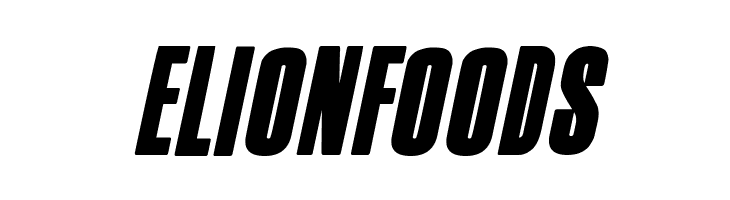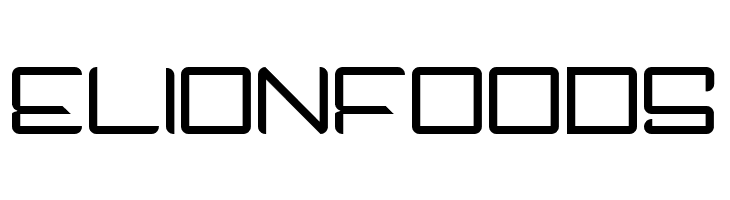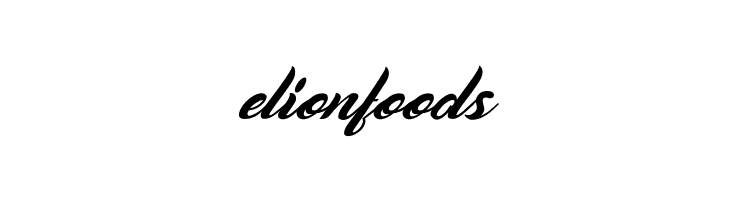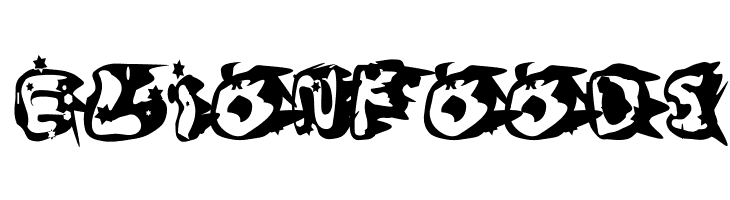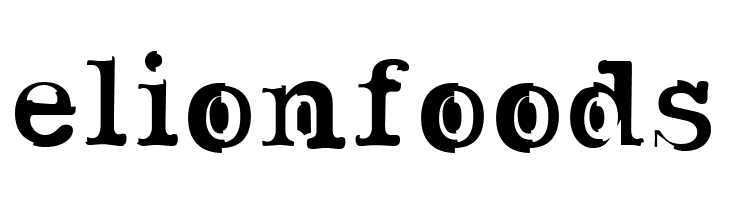
Casablanca Noir Personal Use Regular Font
An elegant script font with flowing, cursive letters and calligraphic flair.
NOIR Font
A bold, handwritten font with a playful and informal style.
Noir-et-Blanc Font
A modern font with Art Deco-inspired uppercase and geometric lowercase characters.
Bete Noir NF Font
A bold, zigzag-patterned decorative font with Art Deco influences.
L'Elf Noir du Mal Normal Font
A modern gothic font with sharp serifs and elongated strokes, exuding elegance and mystery.
Betty Noir Font
A bold, high-contrast font with dramatic angles and curves.
Noir-et-Blanc Bold Font
A bold, modern-vintage font with sharp serifs and high contrast.
OPTILeLatin-NoirEtroit Font
A bold, condensed font with high contrast and a striking appearance.
Cafe Noiré BV Font
A modern, geometric font with rounded edges and a sleek design.
Tech Noir Font
A futuristic, geometric font with angular letterforms and a sleek, modern appearance.
Vedette Noire Font
A bold, cinematic font with a vintage film reel aesthetic.
Film Noir Font
A bold, block-like font with a vintage yet modern appeal, ideal for headlines.
CF La Sorciere Noire Regular Font
A dynamic, brush-style font with expressive strokes and a bold, artistic flair.
Noir 2 Wide Font
A futuristic, outlined font with elongated, narrow characters.
Les Sorcires de la Lune noire Font